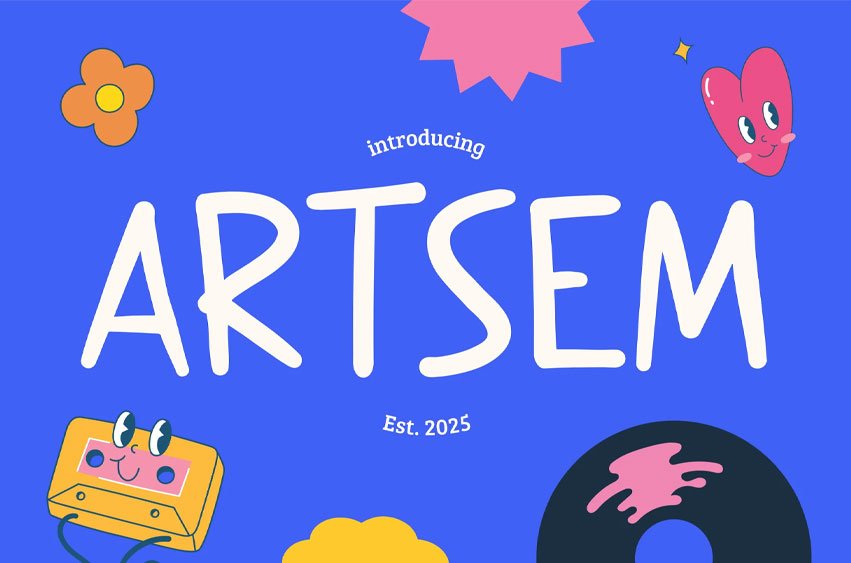
Artsem Font Handwriting font Artsem brings an expressive vibe with its bouncy baseline, bold proportions, and playful flow. Its rounded curves and energetic strokes create a handcrafted feel that instantly grabs attention, making it perfect for festival posters, kids’ branding, and modern social campaigns. This typeface radiates joy and movement, while staying versatile enough for digital and print projects.
Designed for creators who want their message to feel alive, Artsem works beautifully across branding, editorial spreads, poster design, social media graphics, and even kids’ books. Its playful yet confident personality sets a vibrant emotional tone, making it ideal for projects that demand youthful energy and a modern edge.
Key Features :
- Expressive Letterforms – Bouncy baseline and smooth curves that radiate energy
- Versatile Usability – Works for posters, digital campaigns, and packaging design
- Youthful Personality – Adds a joyful, human touch to headlines and taglines
- Attention-Grabbing – Creates instant visual impact with strong readability
- Creative Freedom – Ideal for branding, event flyers, or social storytelling